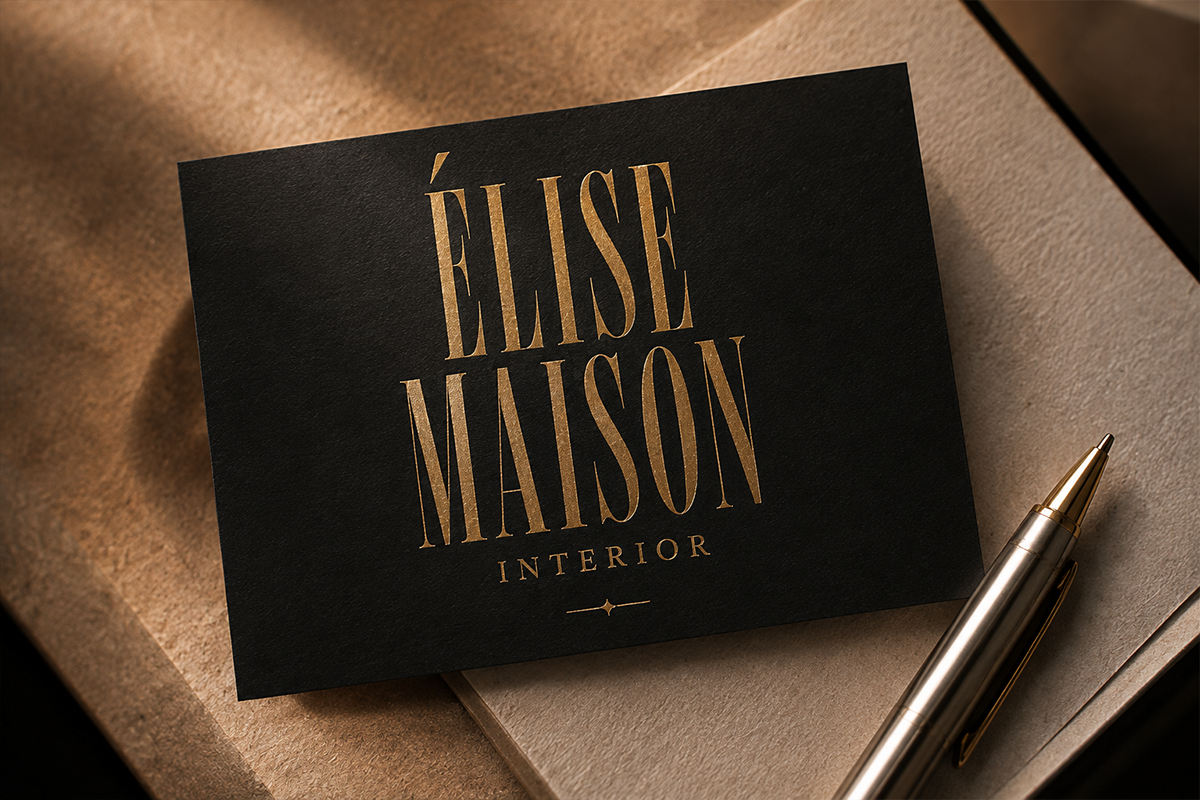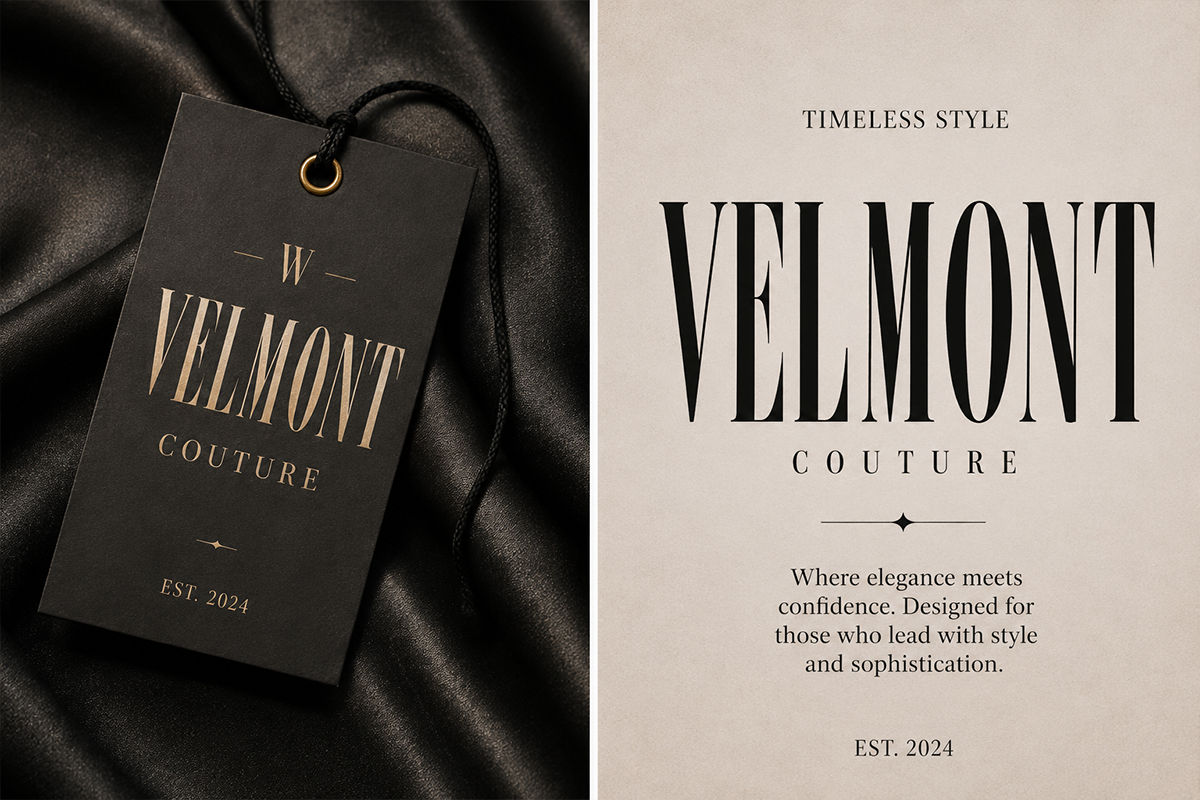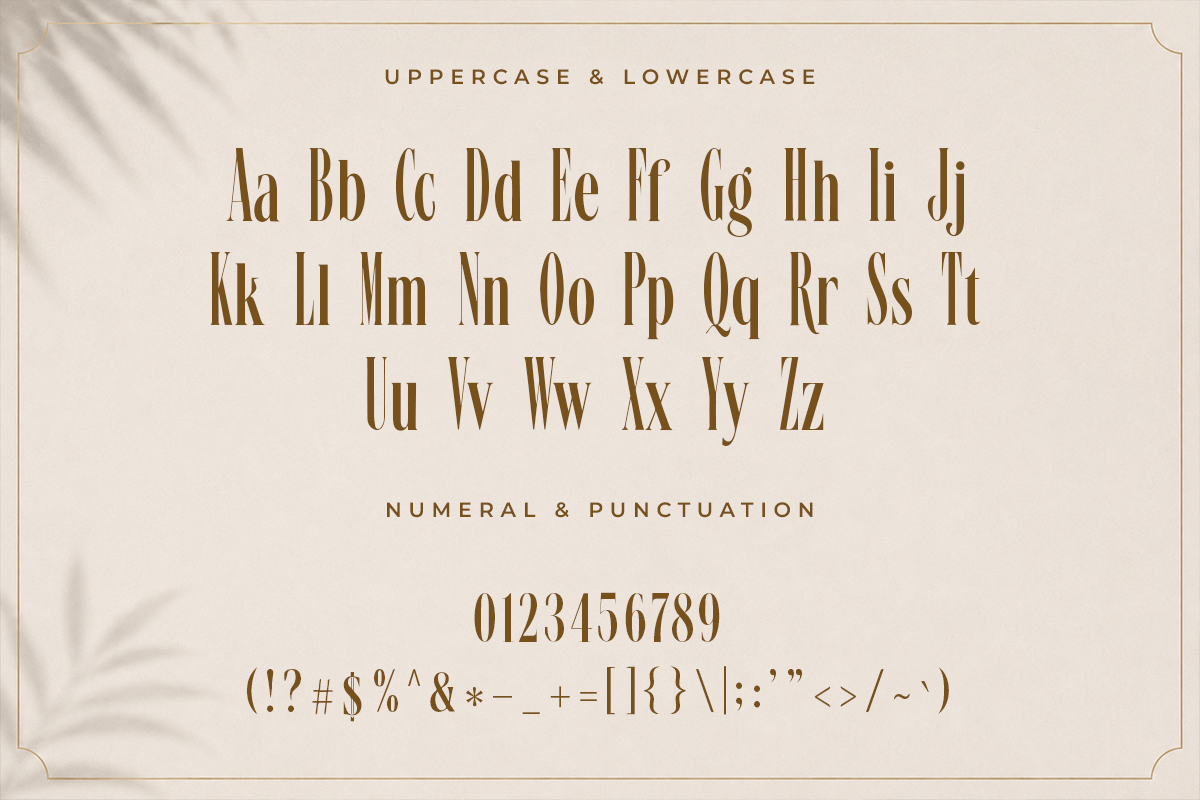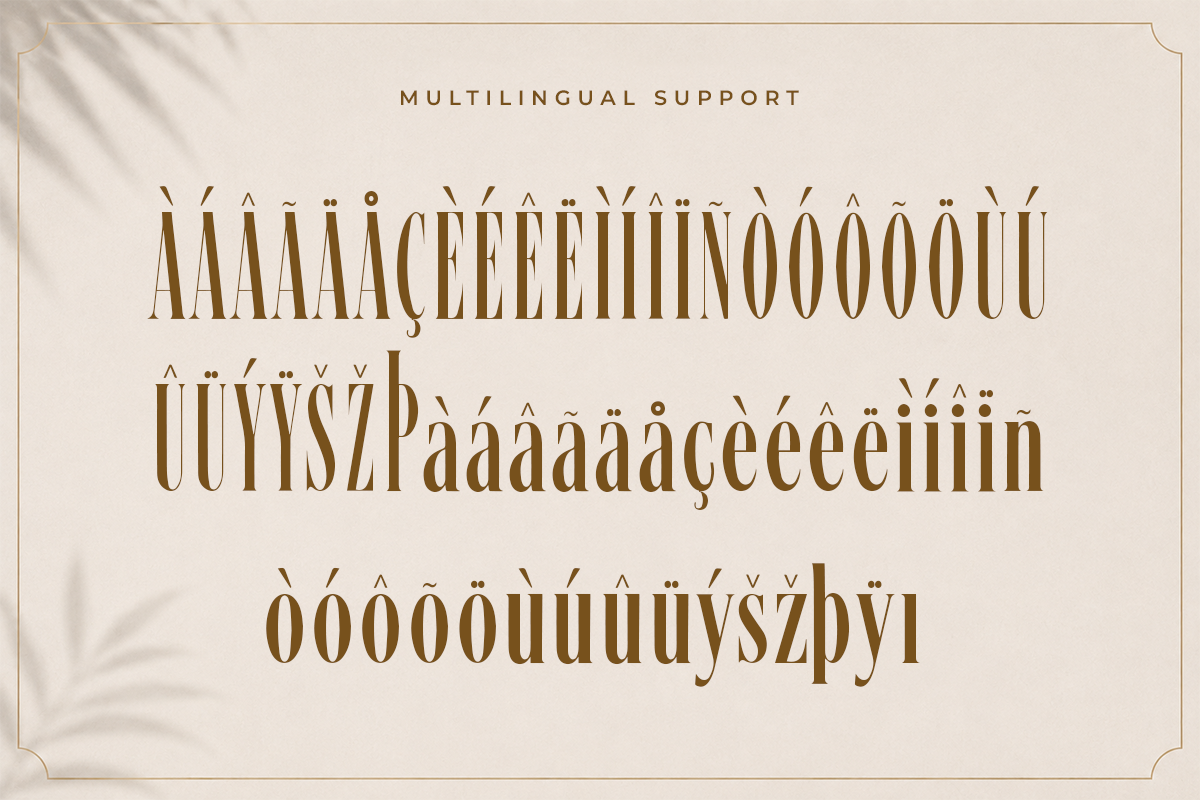
Vellaro is a sophisticated modern serif font designed with refined proportions, dramatic contrast, and an unmistakable sense of luxury. Its tall letterforms, elegant curves, and slender details create a graceful visual presence that feels both contemporary and timeless.
Created to express elegance, confidence, and exclusivity, Vellaro combines classic serif foundations with a modern fashion-forward attitude. Its striking high-contrast structure makes every headline feel polished and premium, while its distinctive shapes add a memorable personality to logos and brand identities.
Vellaro is perfect for luxury branding, perfume and cosmetic packaging, fashion editorials, logos, magazines, wedding stationery, beauty products, jewelry branding, premium packaging, hotel identities, and sophisticated advertising.
Inspired by haute couture, fine fragrances, minimalist interiors, and contemporary luxury, Vellaro transforms typography into an elegant statement of modern sophistication.Perfect for:
Luxury Branding • Logos • Editorial • Fashion • Magazines • Packaging • Invitations • Hospitality • Beauty • Premium Products